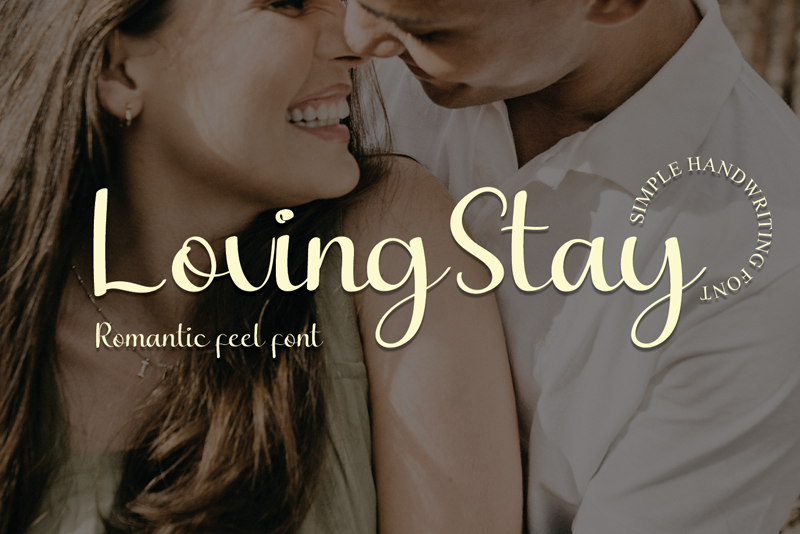
Font name: | Loving Stay |
Author: | Luluk Surotul |
Note by Luluk Surotul | |
Loving Stay is a lovely and delicate script font that exudes elegance and class. This font was particularly crafted for those who need a beautiful and refreshing look to their designs. Attention : Loving Stay handwriting Font is prohibited to use this font for commercial purposes or for profit without the permission of the author/admin, without being known to use this font without permission, will be subject to sanctions 5x the specified price. This font is used only for demos (Demo license) If you want to use this font for commercial use please contact email: elllulukstudio123@gmail.com or click the link below: https://www.creativefabrica.com/product/loving-stay-2/ref/761303/ If you want to see more other fonts, please click: https://www.creativefabrica.com/designer/el_hotcig/ref/761303/ Any donations are very appreciated. Paypal account for donation: https://www.paypal.com/paypalme/luluk783 thanks. |